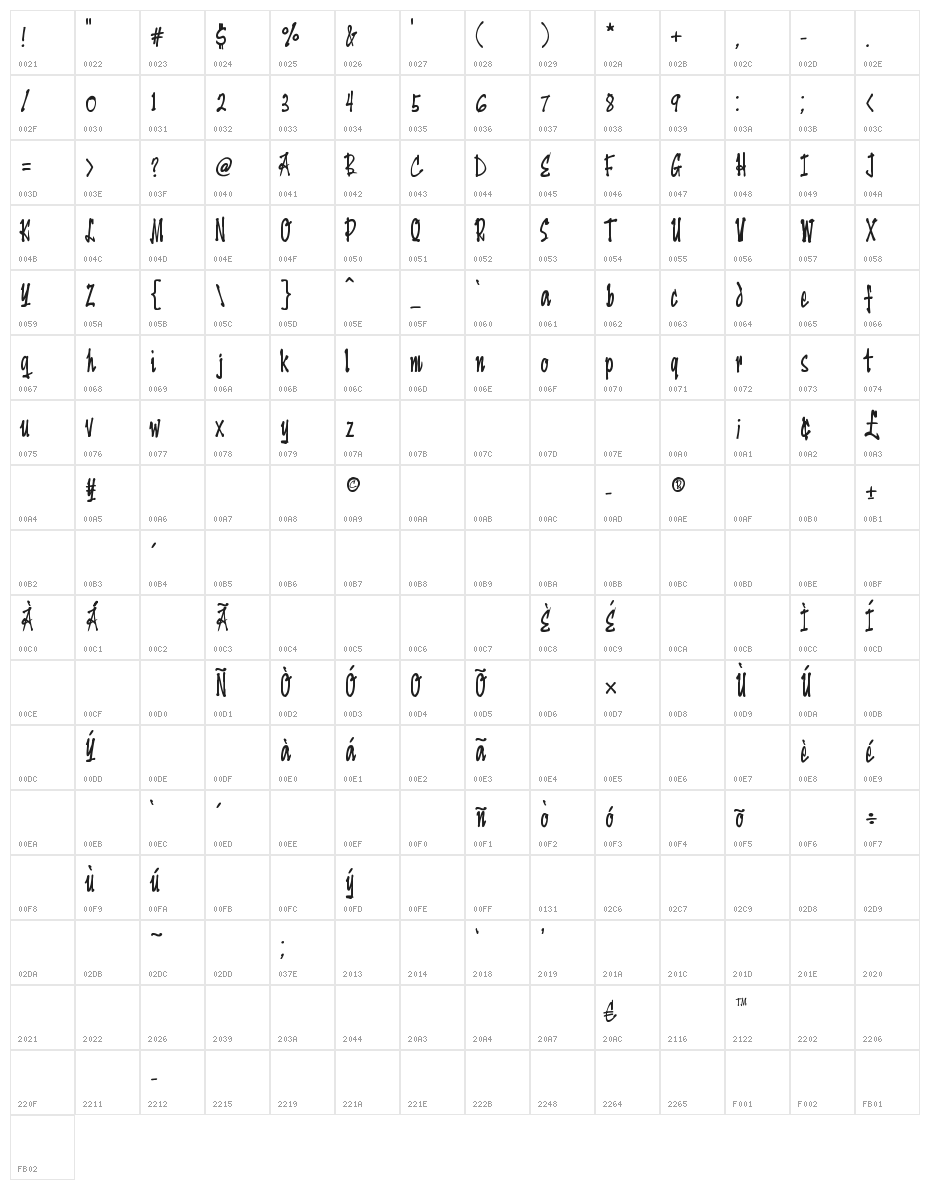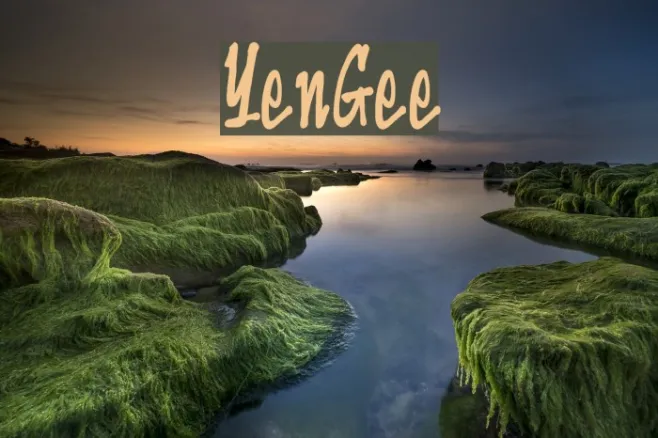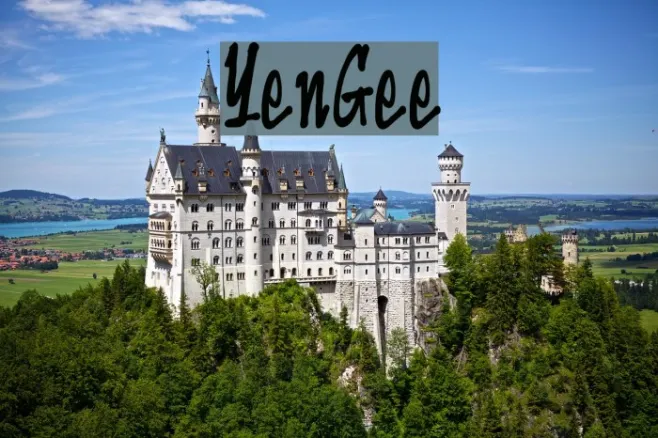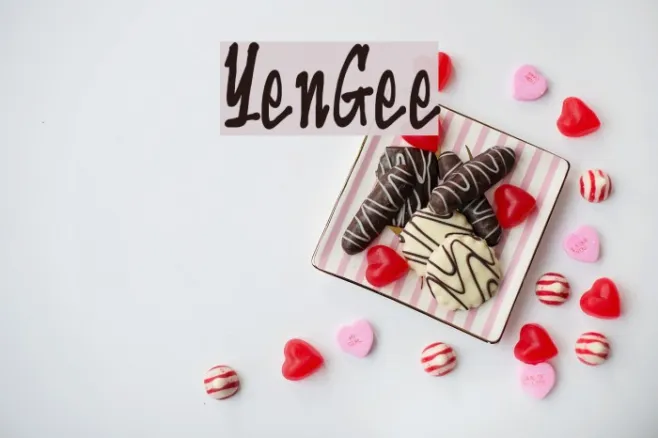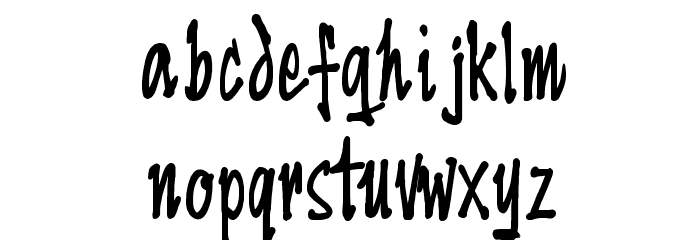
YenGee Font
YenGee Description
This font exhibits a bold and expressive style with a handwritten flair. The uppercase letters are characterized by their dynamic strokes and slightly irregular forms, giving them a lively and energetic appearance. The lowercase letters maintain a consistent flow, complementing the uppercase with a more subdued yet equally expressive style. Numbers and special characters follow the same design ethos, ensuring a cohesive look across all elements. The font's playful and informal nature makes it suitable for creative projects that require a personal touch.
| Proposed Projects | Ideal for greeting cards, invitations, posters, and branding projects that seek a personal and creative touch. |